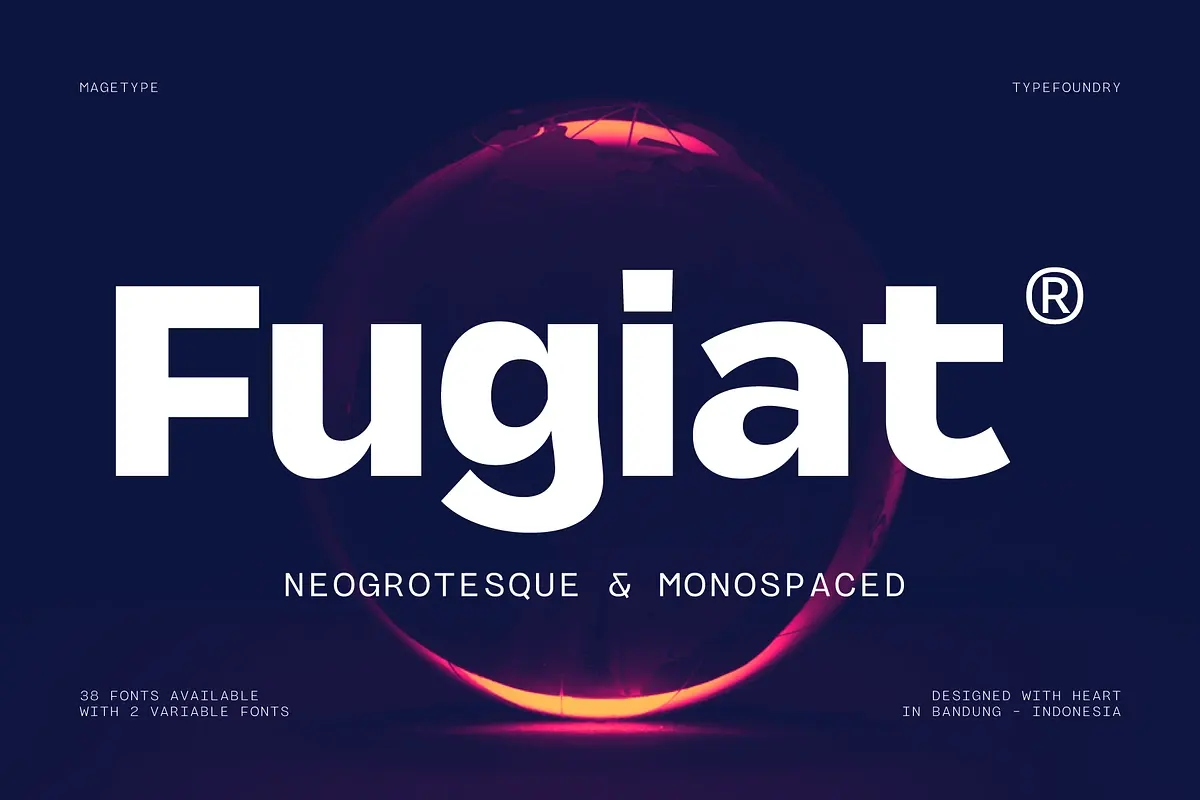
Fugiat Free Download
Fugiat Font Free Download is a sleek and modern typeface that blends minimalist design with bold personality—perfect for professional and creative projects alike. Please note, you are required to purchase this font for commercial use. It is available for free download for testing and personal projects only.
Featuring clean lines, balanced spacing, and a contemporary look, Fugiat is ideal for branding, headlines, web design, posters, and editorial layouts. It’s a versatile font that works beautifully in both large displays and smaller text applications, offering clarity and impact.